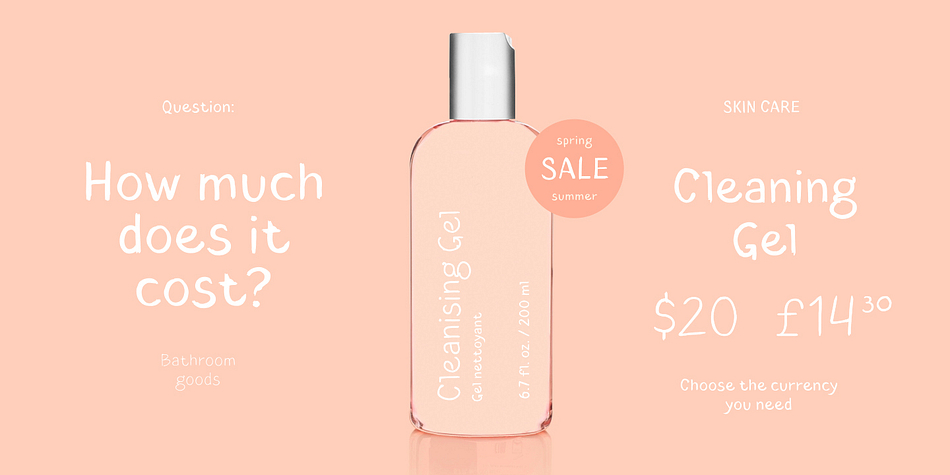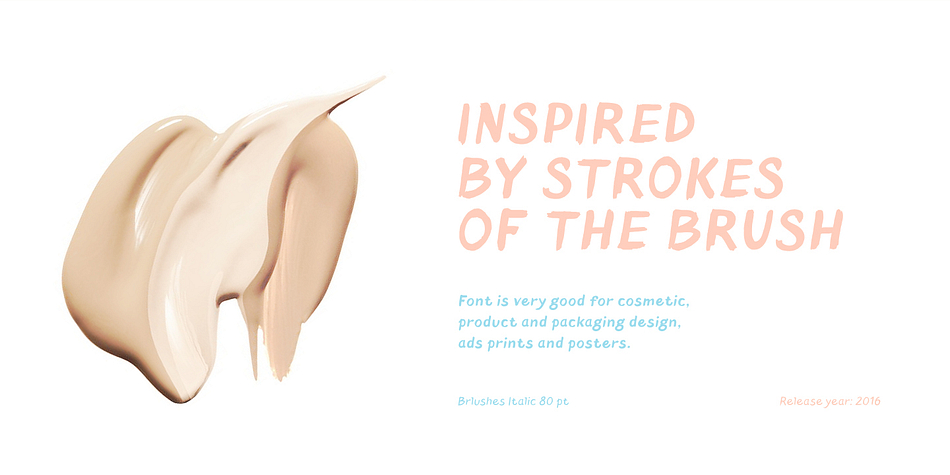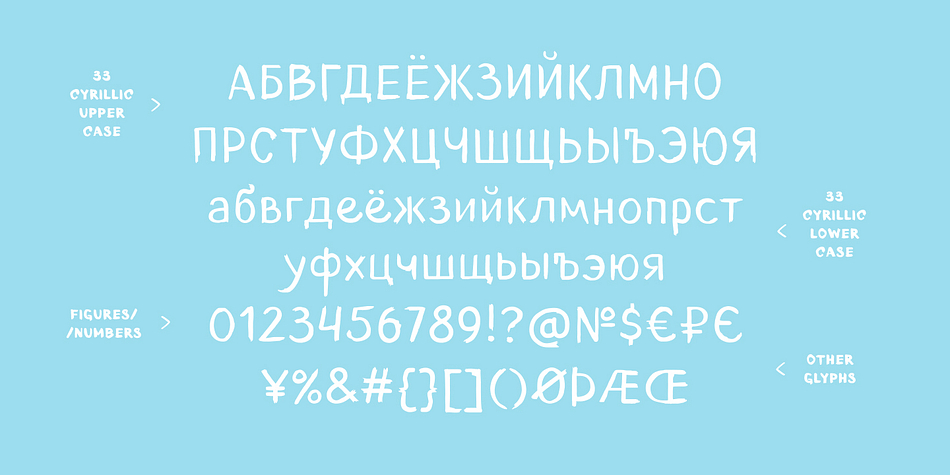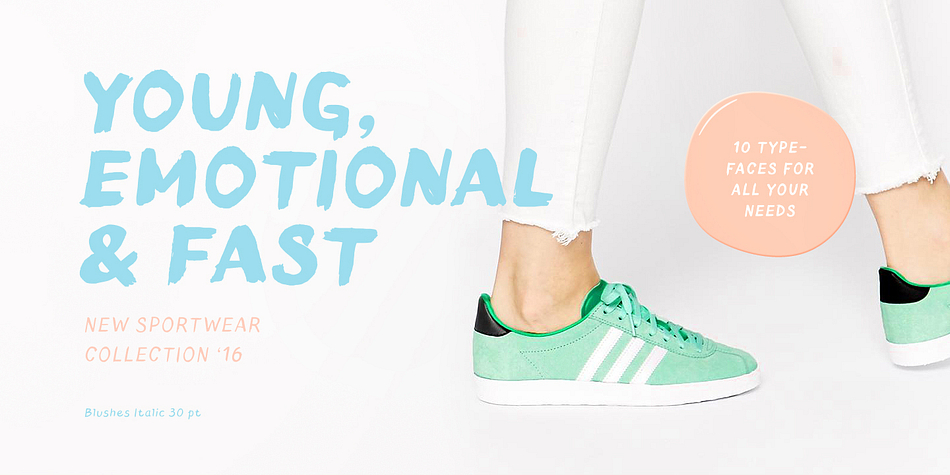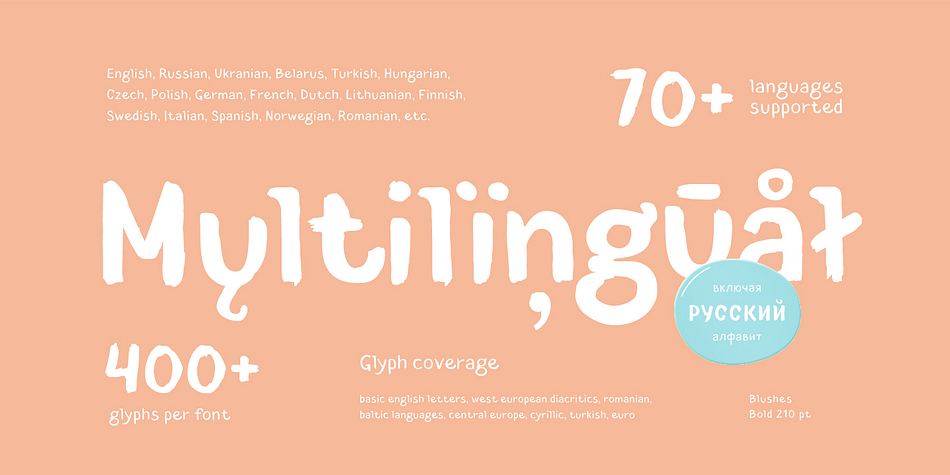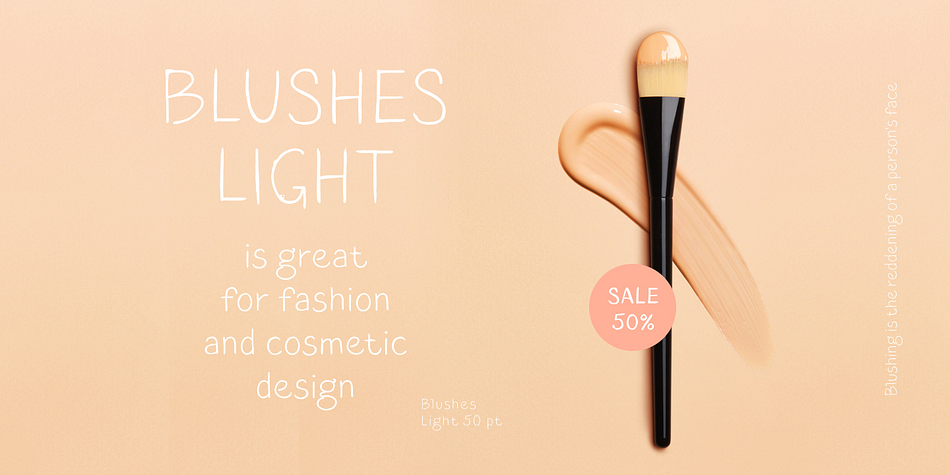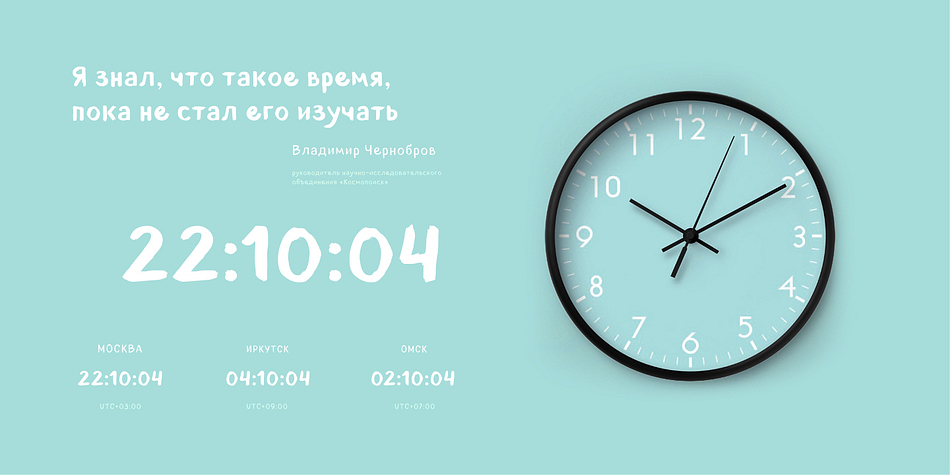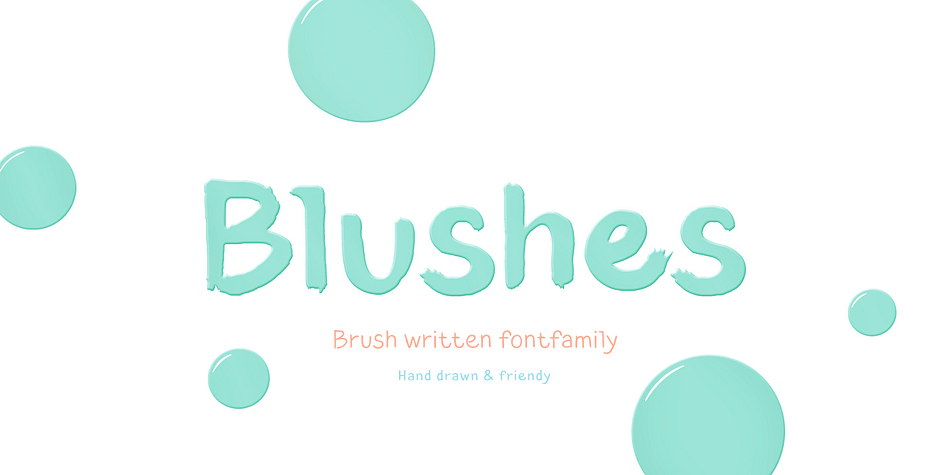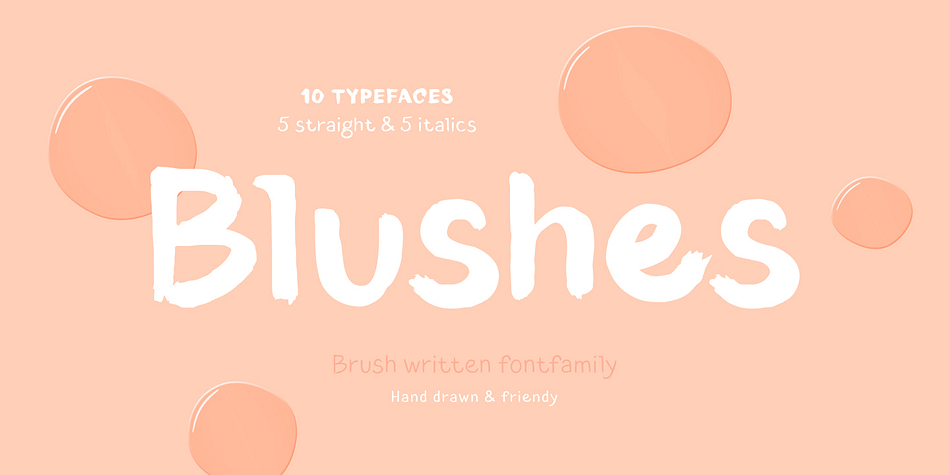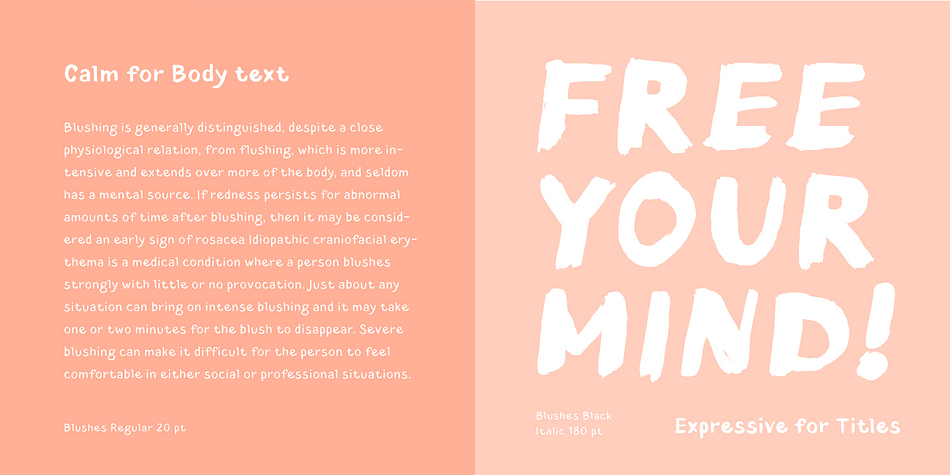
Designed by Ivan Gladkikh, Blushes is a hand drawn font family. This typeface has ten styles and was published by Pinata.
Glitter, flashing cameras and fame – now you know how to deal with this stuff! Freshness and brightness is what defines the Blushes fontfamily, which is created for beauty and fashion industries. Blushes is a vibrant part of you that emphasizes your character.
Glamorous makeup and trendy clothes are now harmoniously enhanced with our fonts which follow every trend of both industries. Blushes can do it all: create edgy prints on T-shirts, use it for beauty products packaging design and fashion magazines layouts as well as advertising brochures.
Blushes works perfectly in the contemporary digital environment. For instance, it is great for an edgy designer clothes on-line store’s website layout, as well as for a beauty products manufacturer’s app
Foundry | Piñata |
Designer | Ivan Gladkikh |